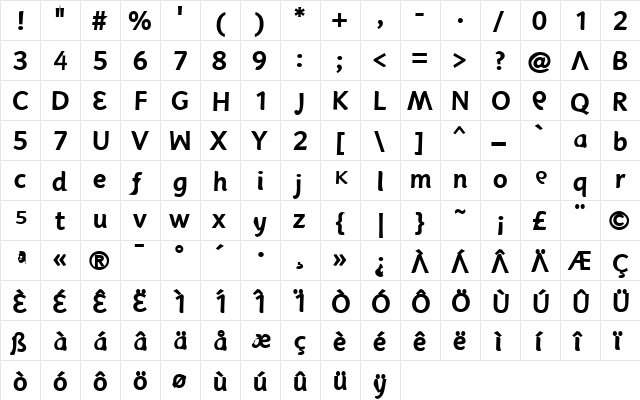
Rle Tjock
Design Context for R��le Typeface
R��le is a composed and adaptable typeface that performs quietly and consistently across a wide range of design contexts.